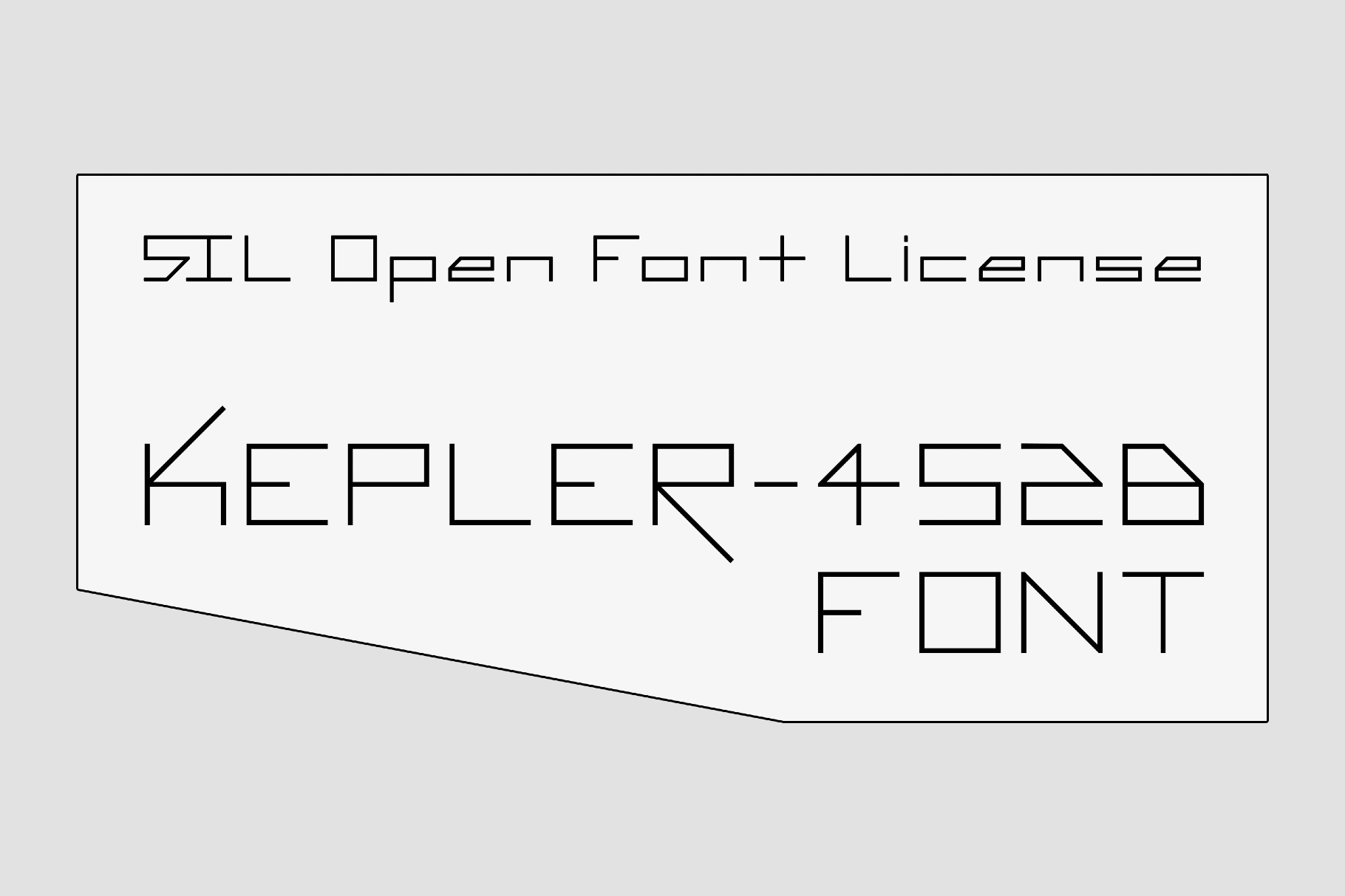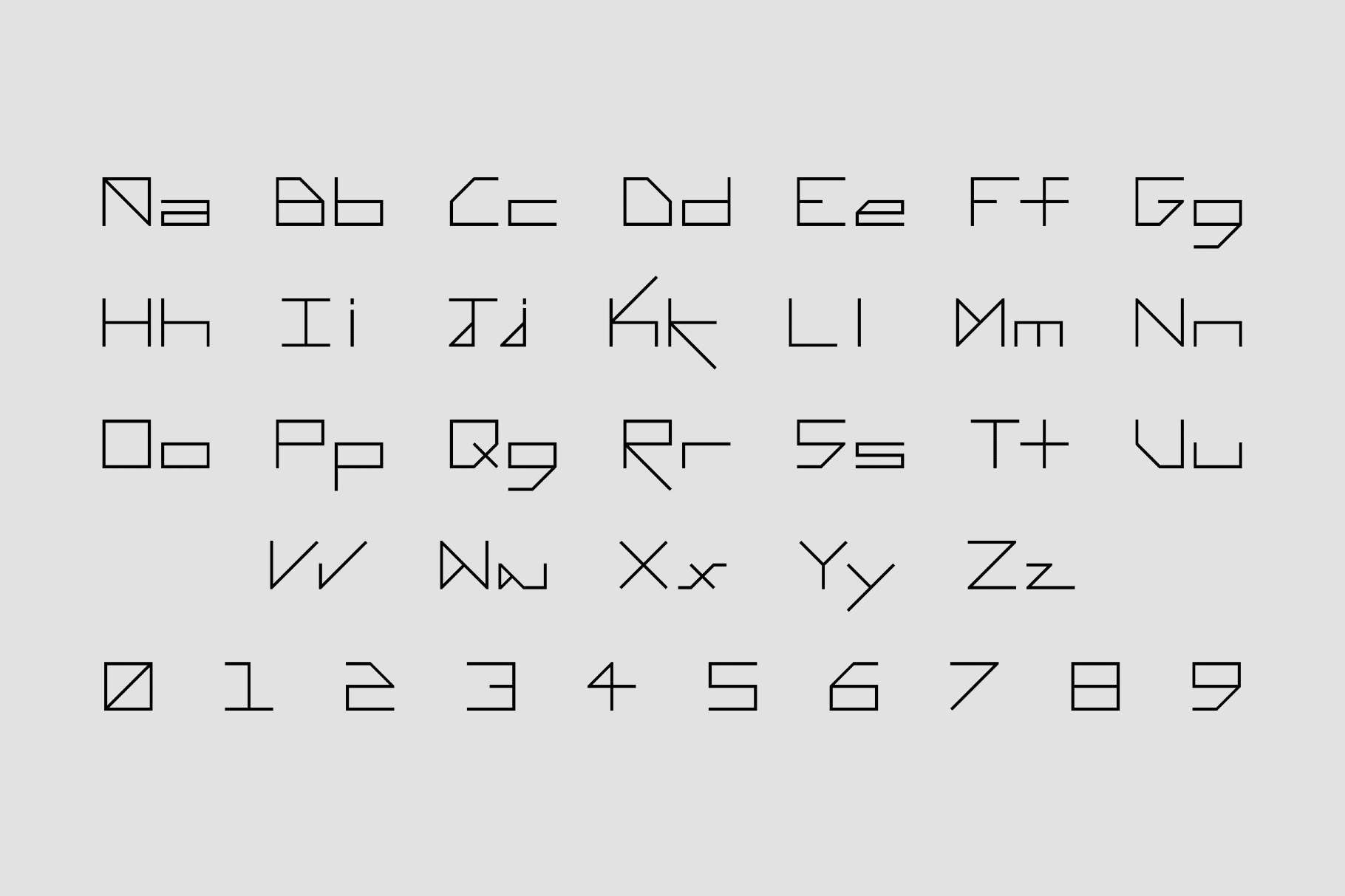
Kepler-452b Font
Mono
Like coordinates on a star map, Kepler-452b has a clean and controlled geometric structure that recalls the typeface you’d find on the cover of an old science-fiction novel about a distant planet nobody fully understands yet. That makes it strong for tech identities, poster headlines, game interfaces, album sleeves, motion titles, editorial covers, UI concepts, and presentation decks.